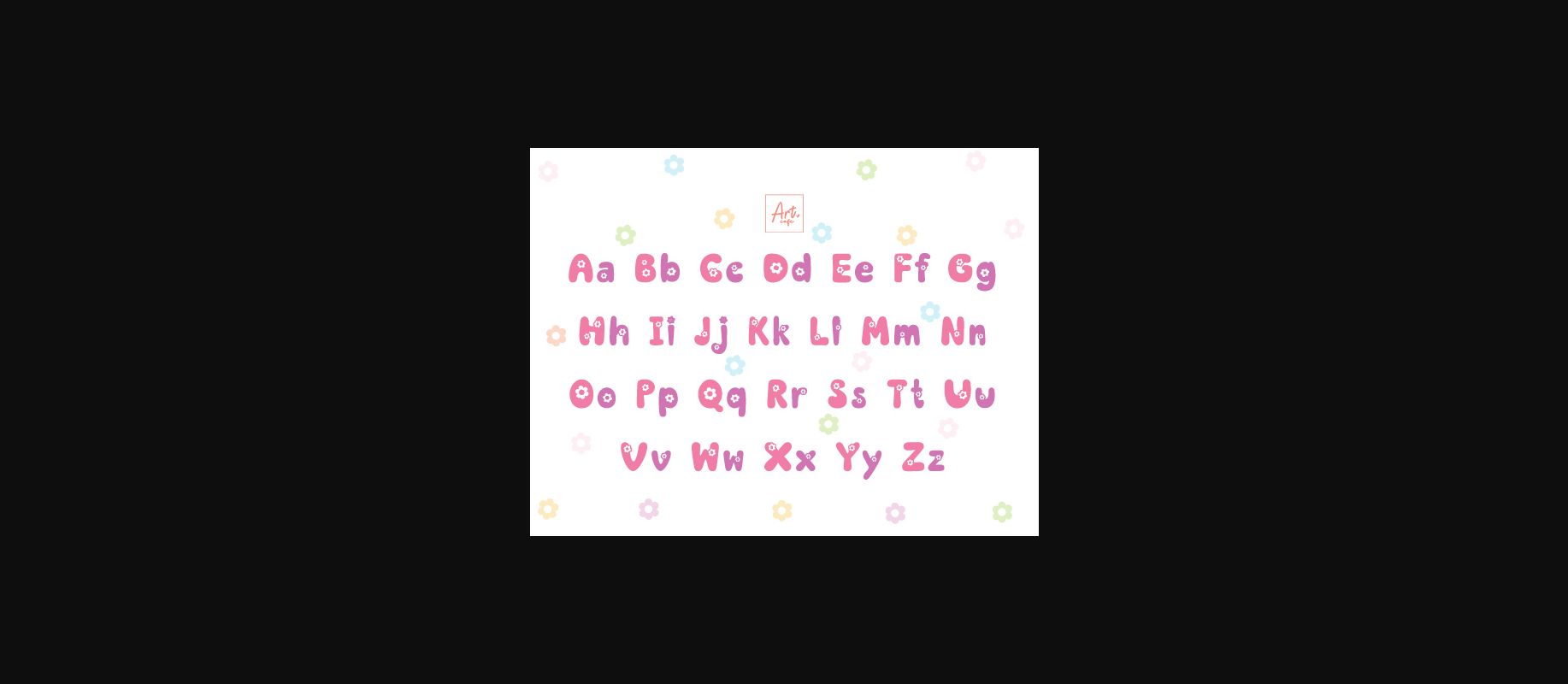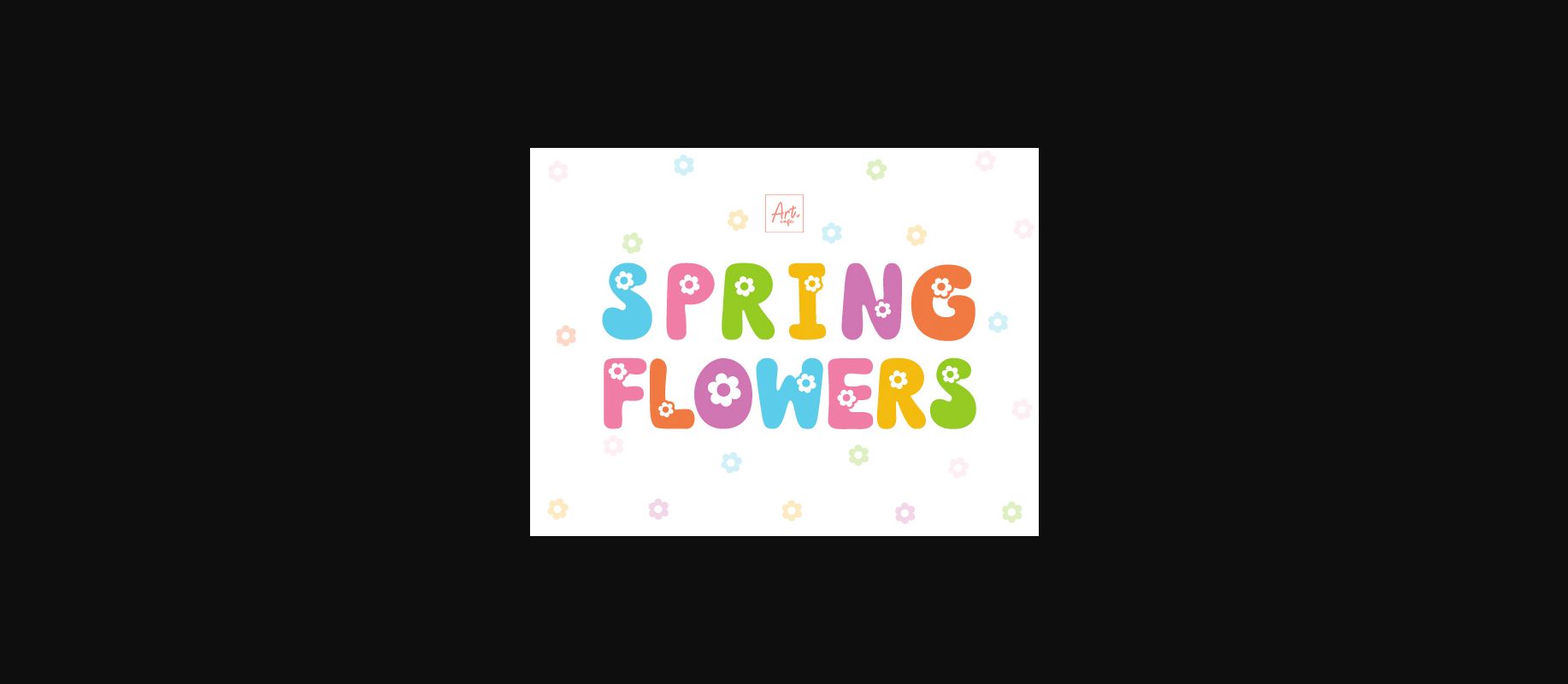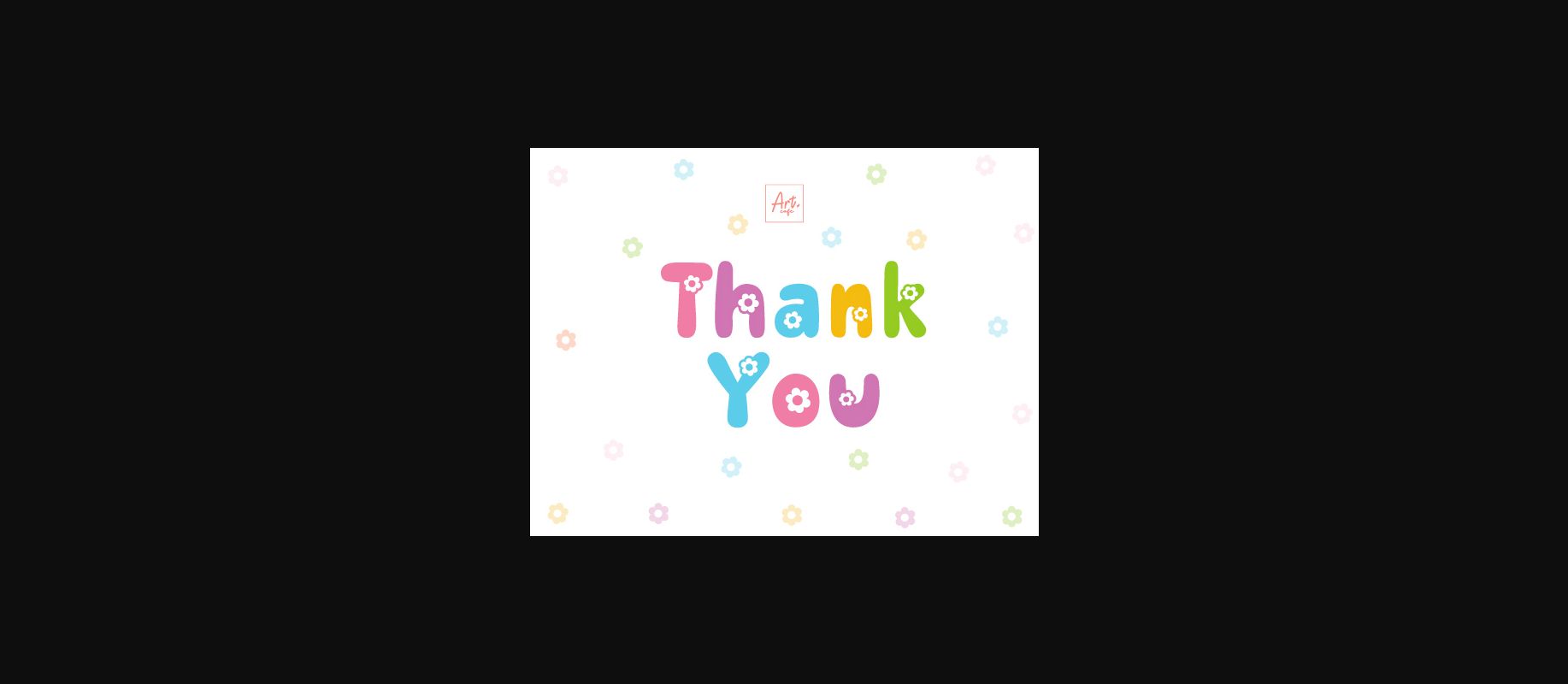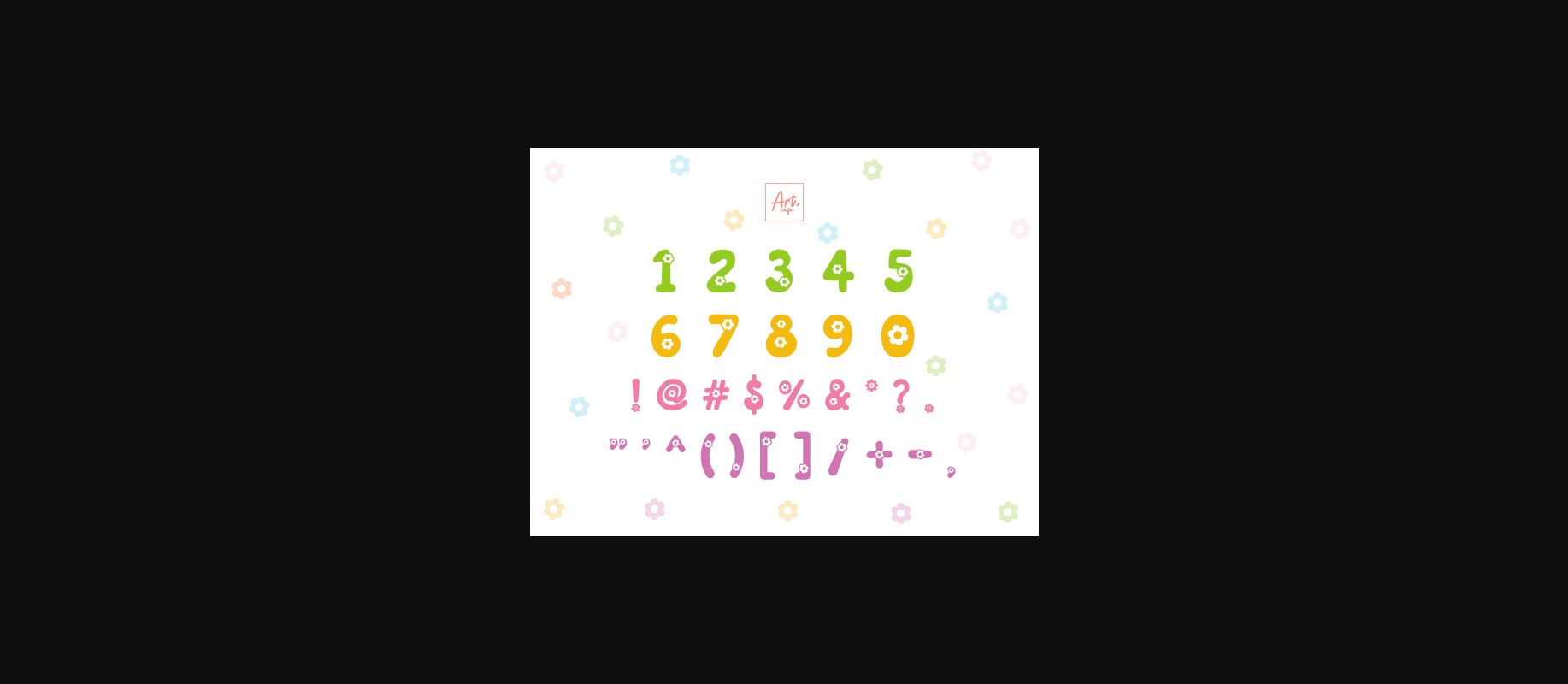
Spring Flowers Font
About Spring Flowers Font
Experience the euphoria of blossoming spring on your upcoming enterprise touched by the Spring Flowers font. Featuring a striking style further adorned with cute enthralling floral ornaments, this font embodies the ultimate pick for kid-friendly endeavors, arresting headlines, or Easter festive atmosphere amidst the enchanting springtime. Its sturdy appeal hums gaiety and freshness, thus accentuating your design with a mesmeric hint of nature’s plentiful gifts.